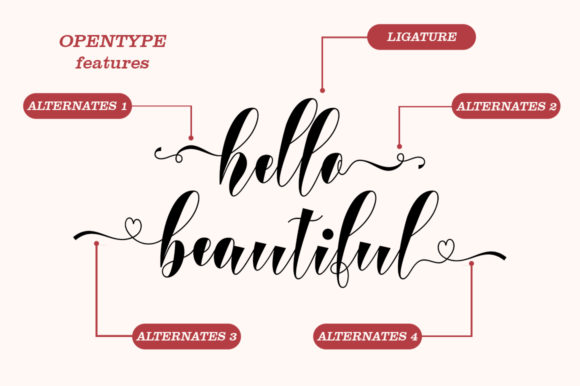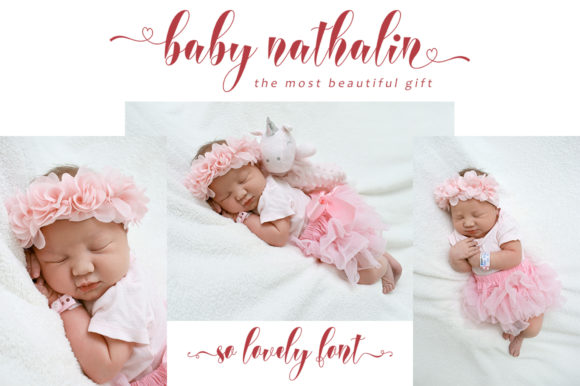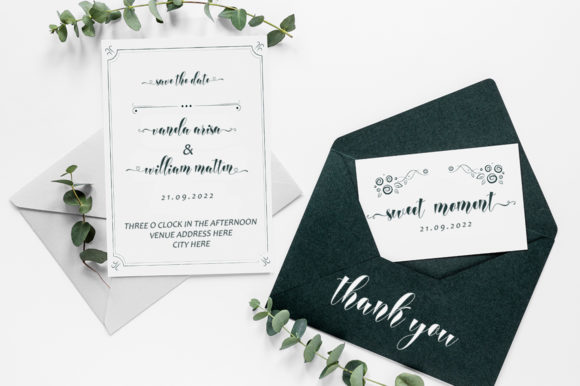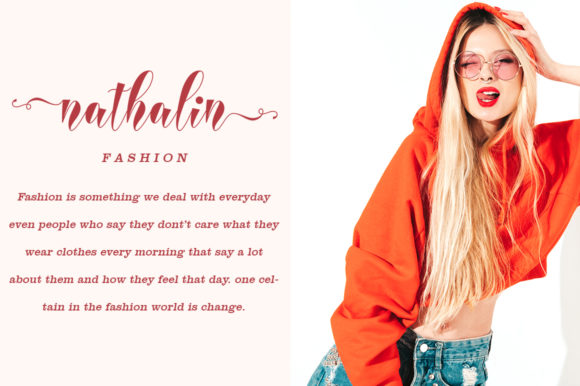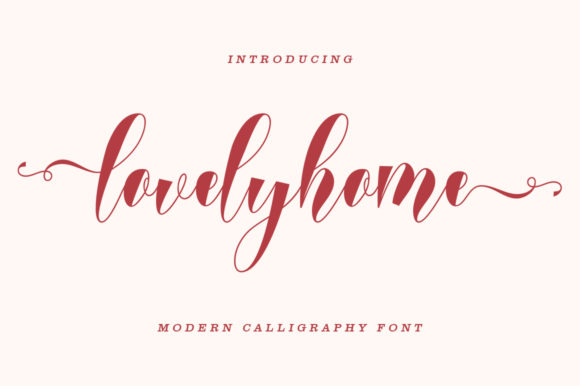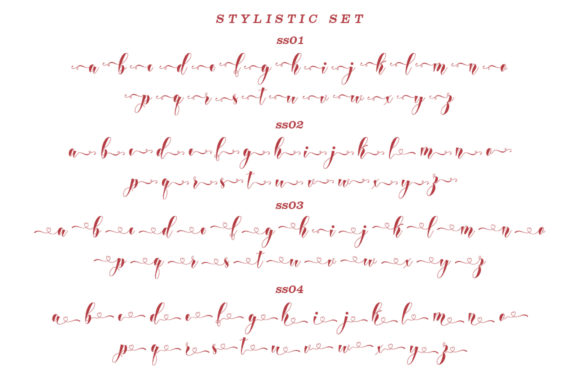
Introduction to Lovelyhome Font
Do you remember the moment when you’re brainstorming ideas for a creative project, and suddenly a beautiful handwritten font pops into your head? For designers, it’s those ‘aha’ moments that make all the hard work worth it. One such font that has been making waves in the design community is the Lovelyhome Font. This elegant and flowing font is a game-changer for any project that requires a touch of sophistication and warmth.
Whether you’re designing wedding invitations, thank you cards, or logos, the Lovelyhome Font is a valuable resource that can elevate your design to the next level. Its high-quality glyphs and stunning alternates make it a must-have for any serious designer. And the best part? It’s available for free download, making it an accessible design resource for creatives of all levels.
With its smooth lines and varying baseline, the Lovelyhome Font is perfect for designs that require a transparent background and a touch of elegance. Whether you’re working on a personal project or a commercial design, this font is sure to impress. So, let’s dive into the world of Lovelyhome Font and explore its features, usage, and benefits for designers.
Key Features of Lovelyhome Font
- High-quality design for creative projects, offering a unique and elegant touch.
- Features a beautiful, cursive script style, making it perfect for titles, headings, and other design elements that require a touch of elegance.
- Designed to be versatile and suitable for a wide range of creative projects, from invitations to branding materials.
Honest Review: Lovelyhome Font
I recently had the opportunity to work with the Lovelyhome Font, and I must say it’s been a game-changer for my creative projects. The high-quality design and versatility of this font have made it a valuable addition to my design resource library.
One of the things I love about the Lovelyhome Font is its unique and elegant style. It’s perfect for any project that requires a touch of sophistication and refinement. ✨
- Beautiful, high-quality design
- Perfect for creative projects, such as invitations, posters, and more
One of the limitations I’ve encountered with the Lovelyhome Font is that it doesn’t come with a transparent background option. This can make it a bit more challenging to work with, especially when it comes to creating complex designs. ⚠️
Overall, I’m really impressed with the Lovelyhome Font. Its unique style and high-quality design make it a valuable addition to any design resource library. I would definitely recommend it to anyone looking for a beautiful and elegant font for their next creative project.
Tips for Getting the Most Out of Lovelyhome Font
Use the Lovelyhome Font to add a high-quality, creative touch to your design projects. Consider using it with a transparent background to create a beautiful, layered design. Experiment with different font sizes and colors to achieve the desired effect.
The Lovelyhome Font is a versatile design resource that can be used in a variety of creative projects, including invitations, brochures, and social media graphics. It’s especially useful for designers looking for a free download that offers a high-quality, elegant look.